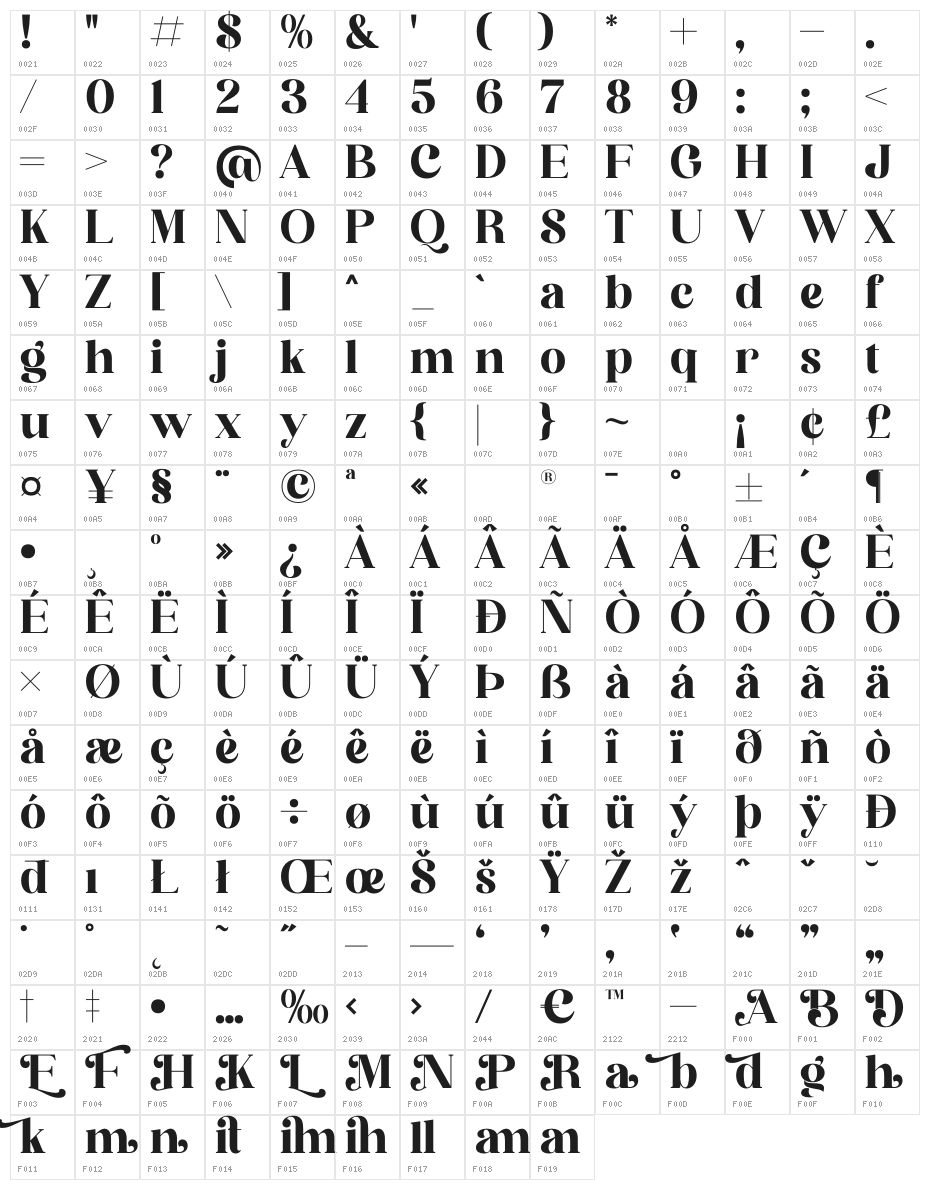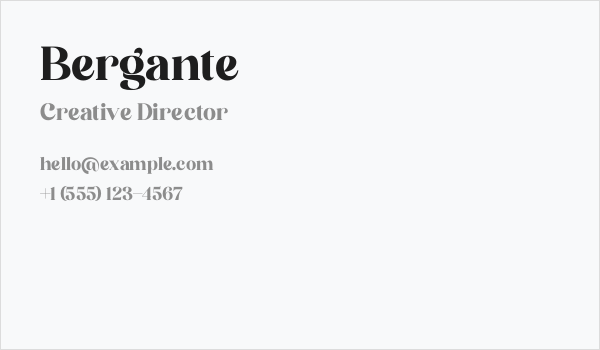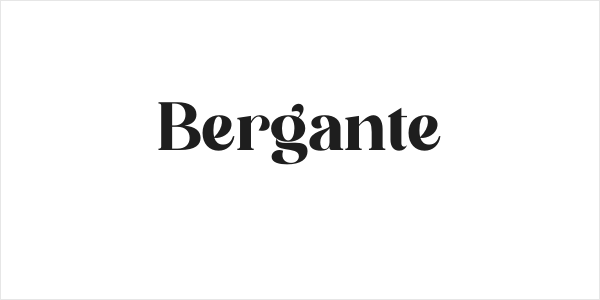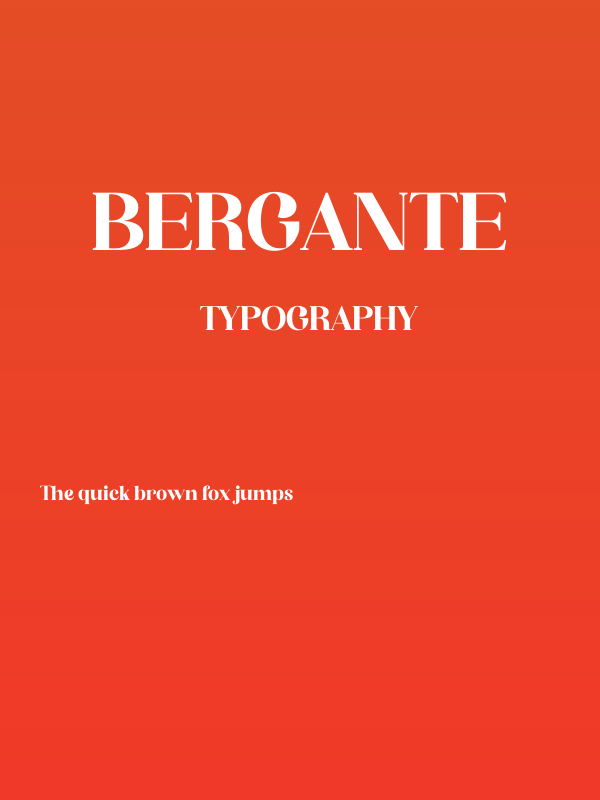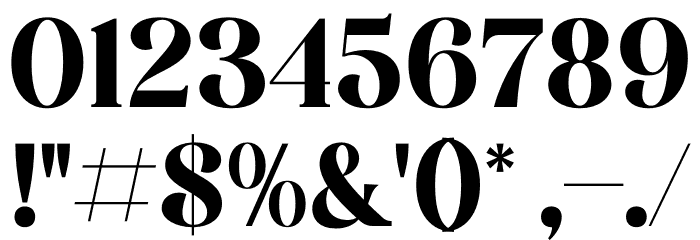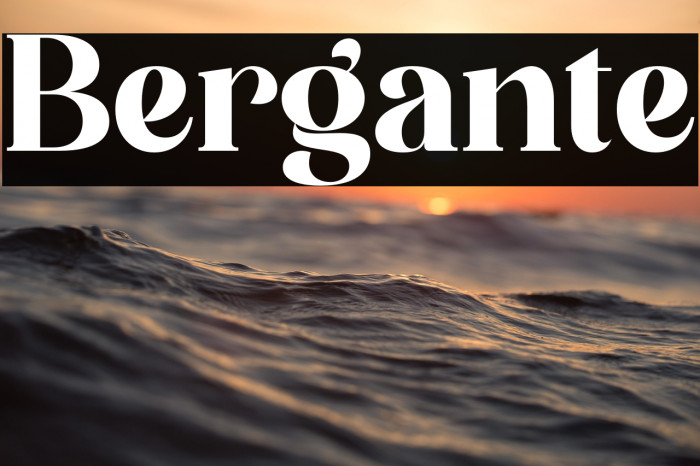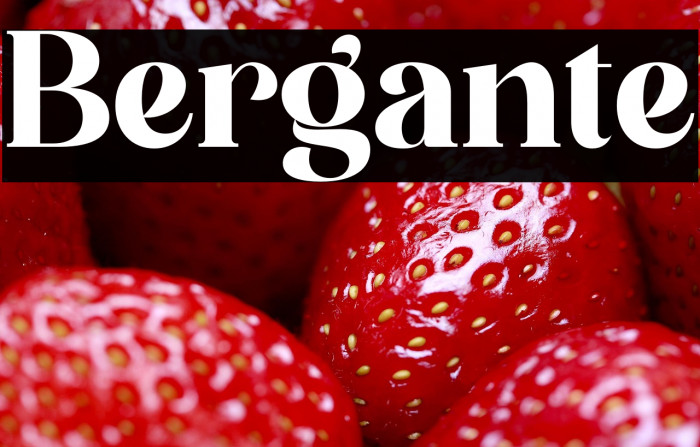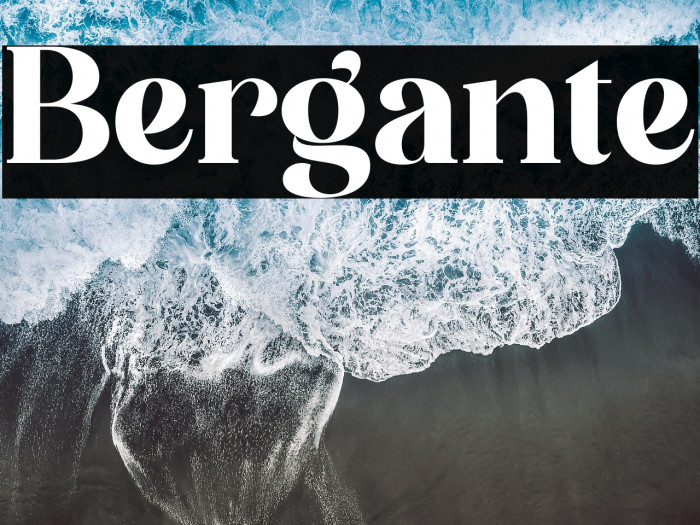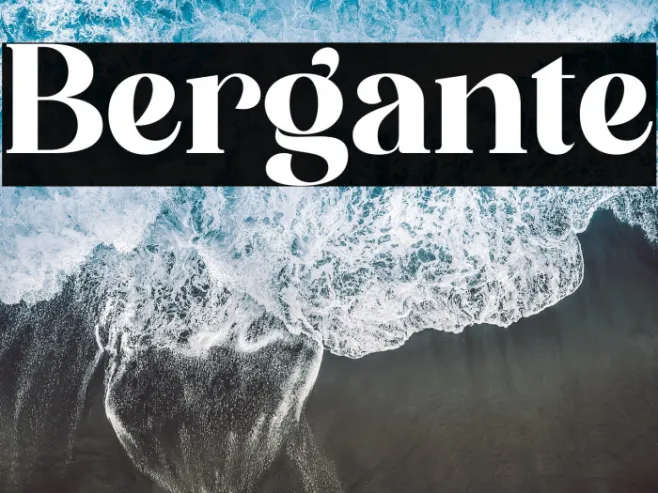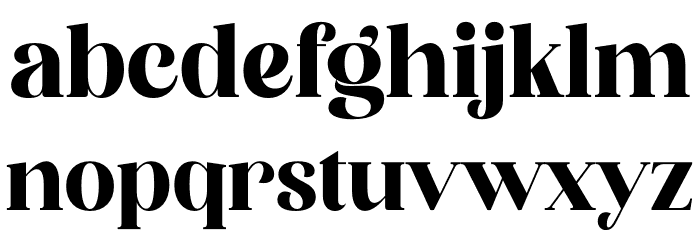
Bergante Font
Bergante Description
This font features a bold and elegant serif style with high contrast between thick and thin strokes. The uppercase letters are characterized by strong vertical lines and subtle curves, giving them a classic yet modern appearance. The lowercase letters maintain a consistent style, with rounded forms and a slightly condensed structure. Numbers are bold and clear, ensuring readability. Special characters are designed to match the overall aesthetic, with a refined and sophisticated look. The font's design is versatile, suitable for both digital and print media.
| Proposed Projects | Ideal for editorial design, branding, luxury product packaging, and elegant invitations. |